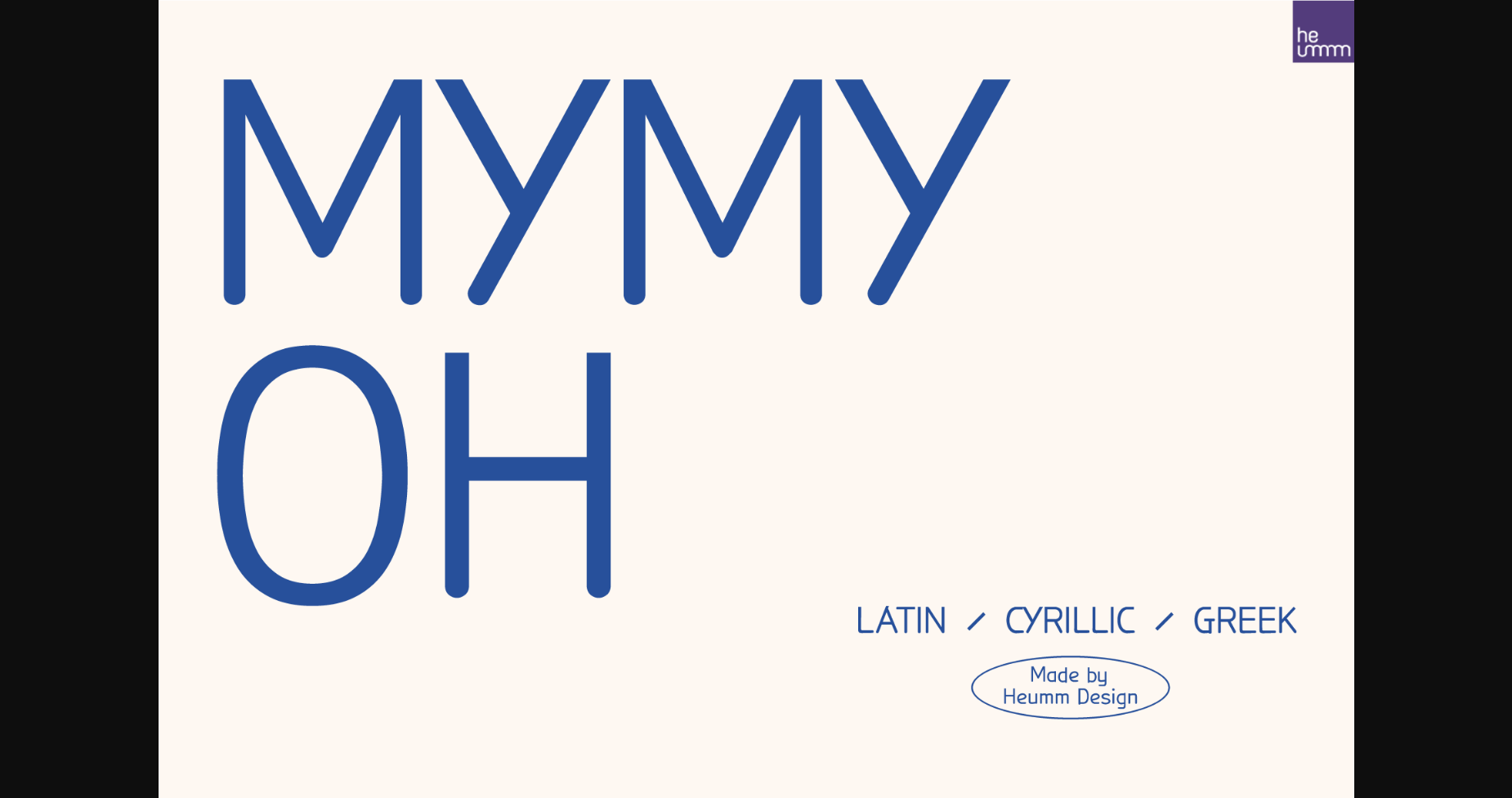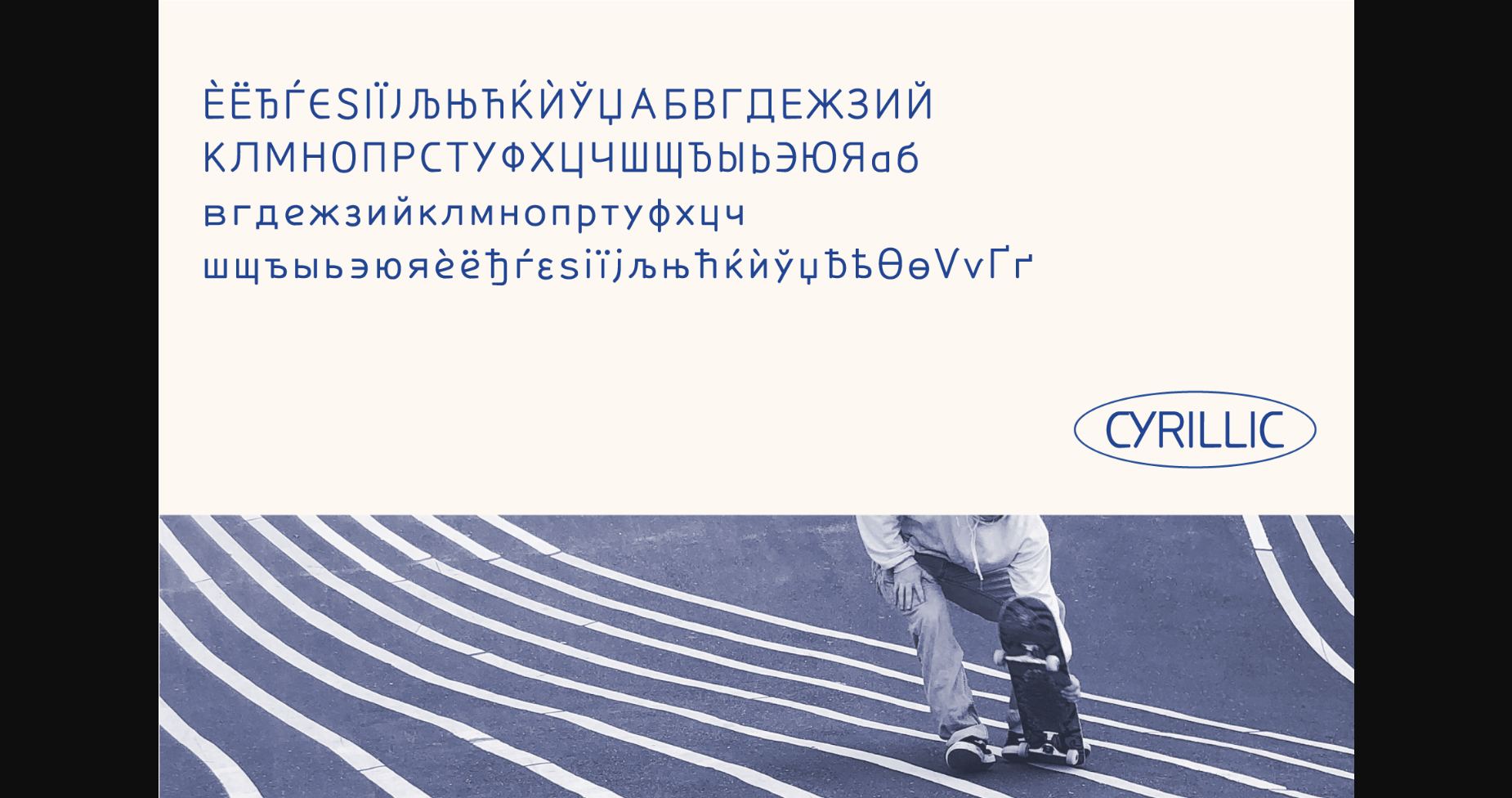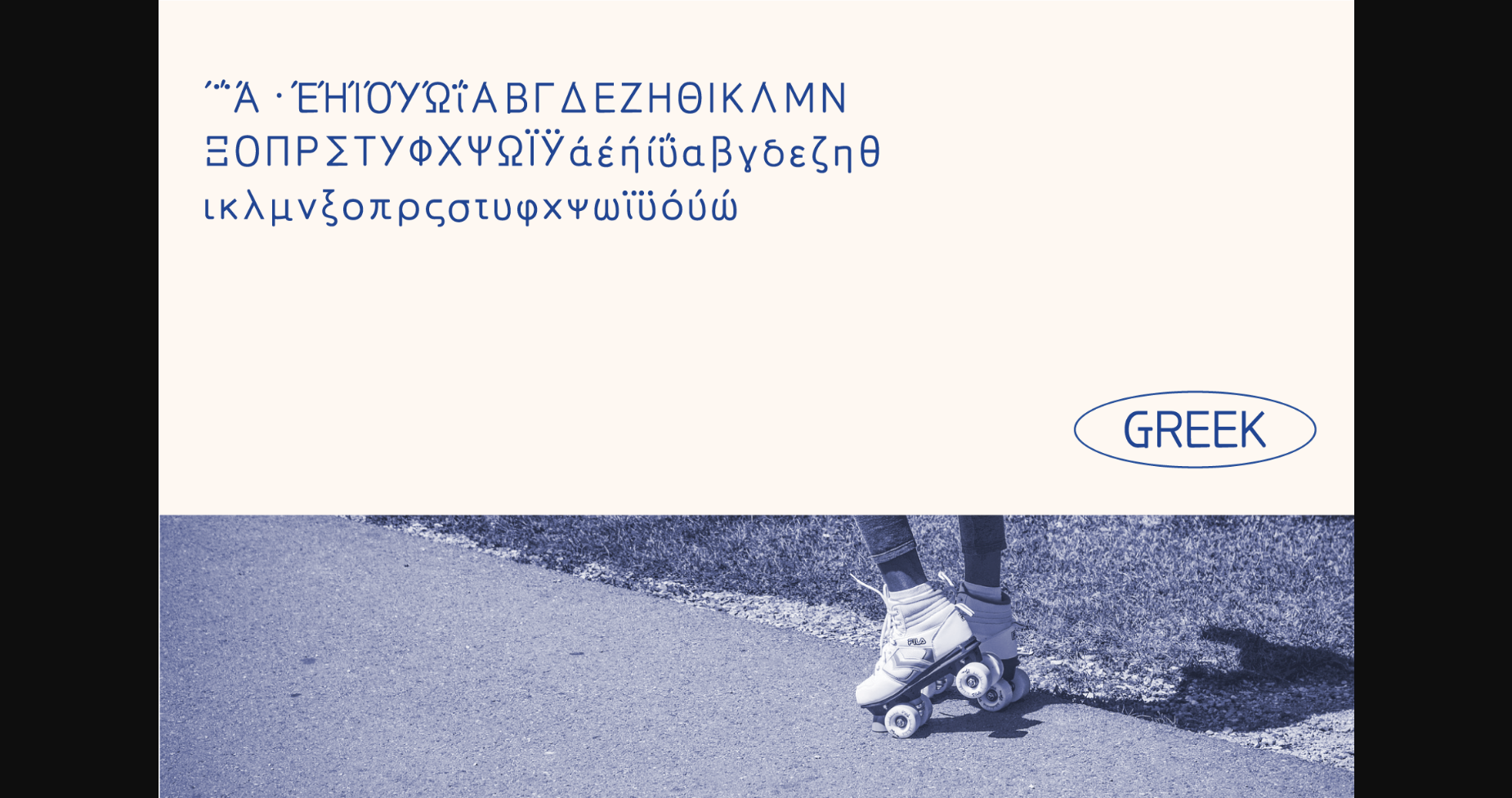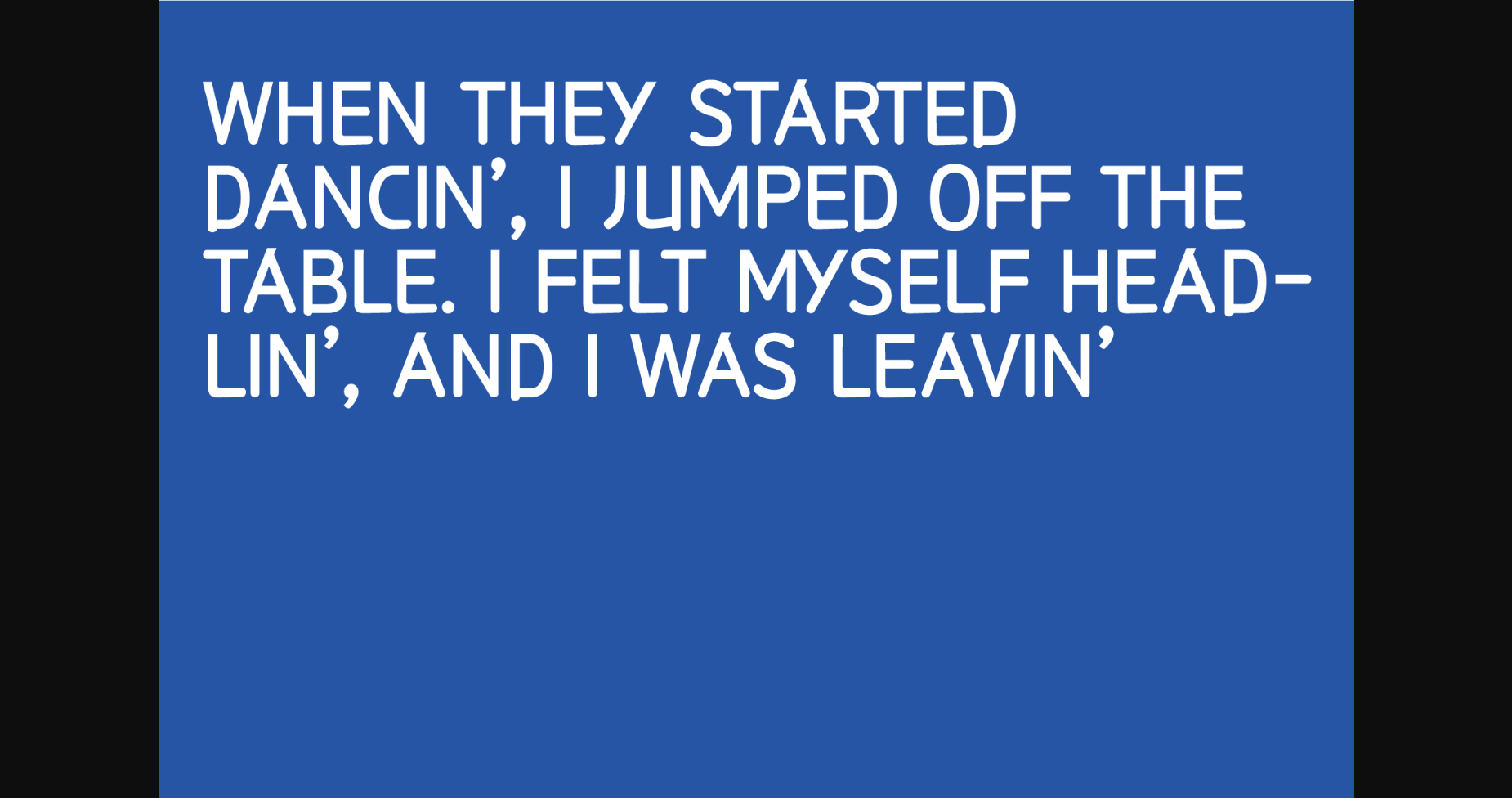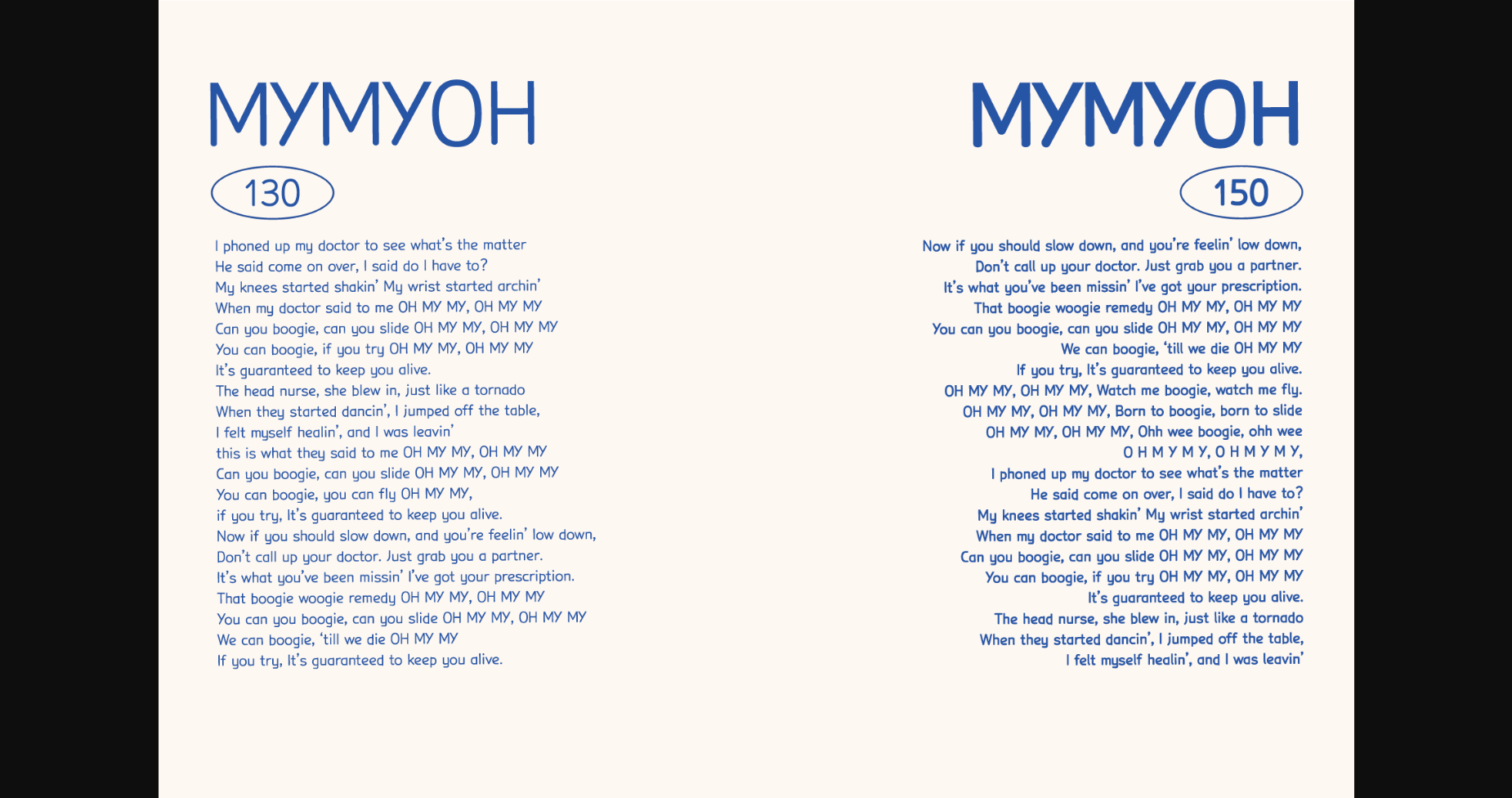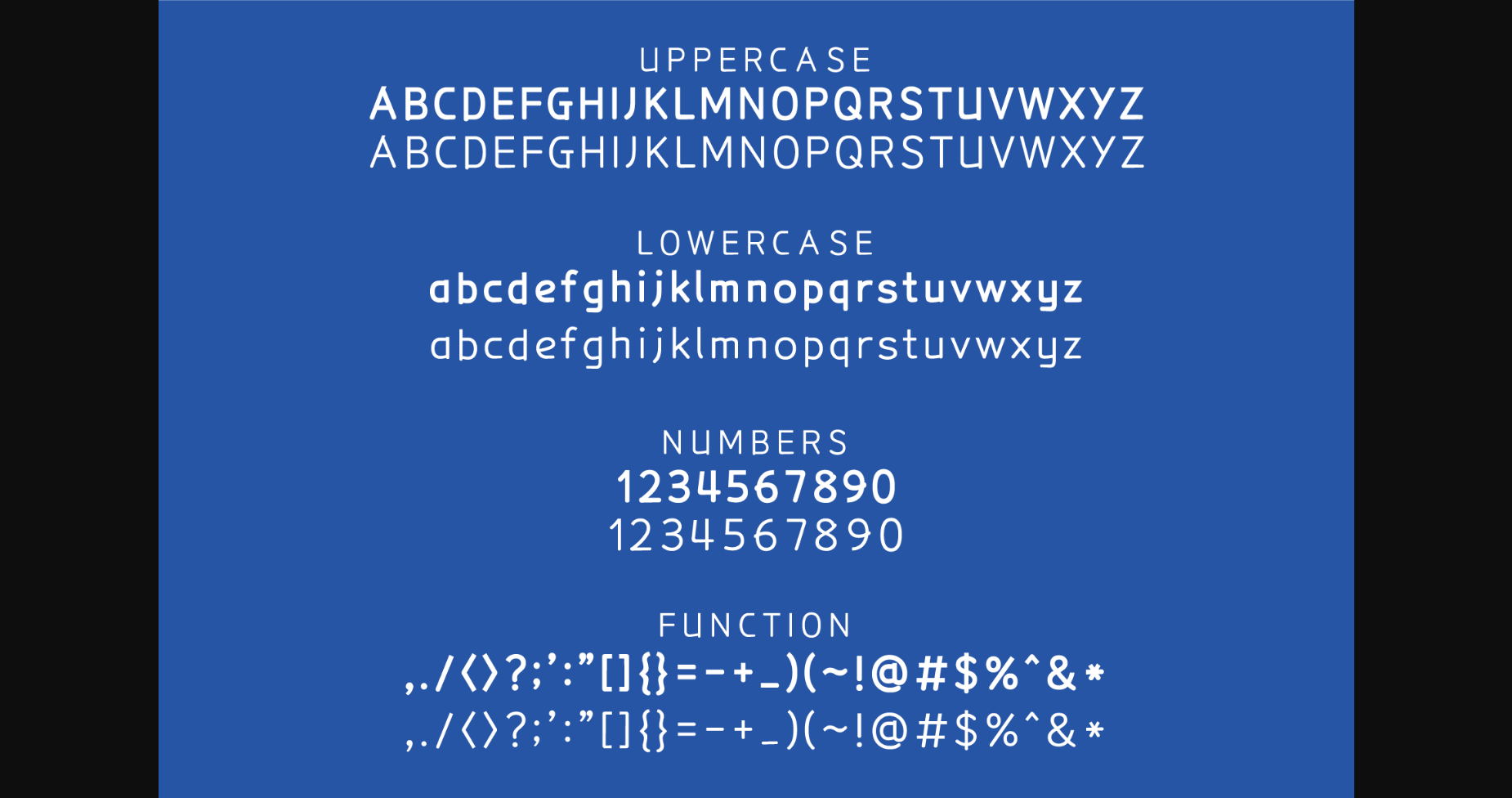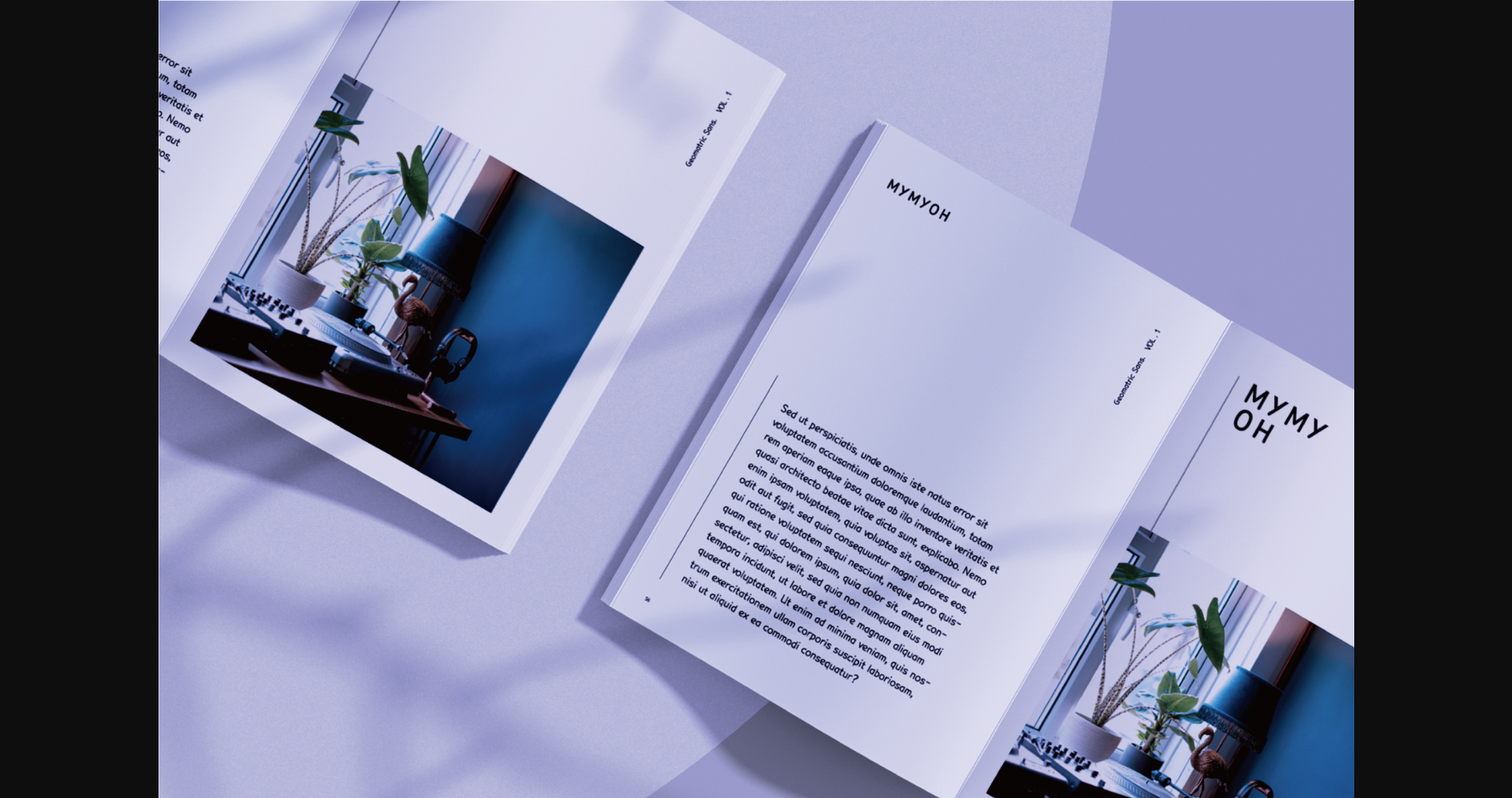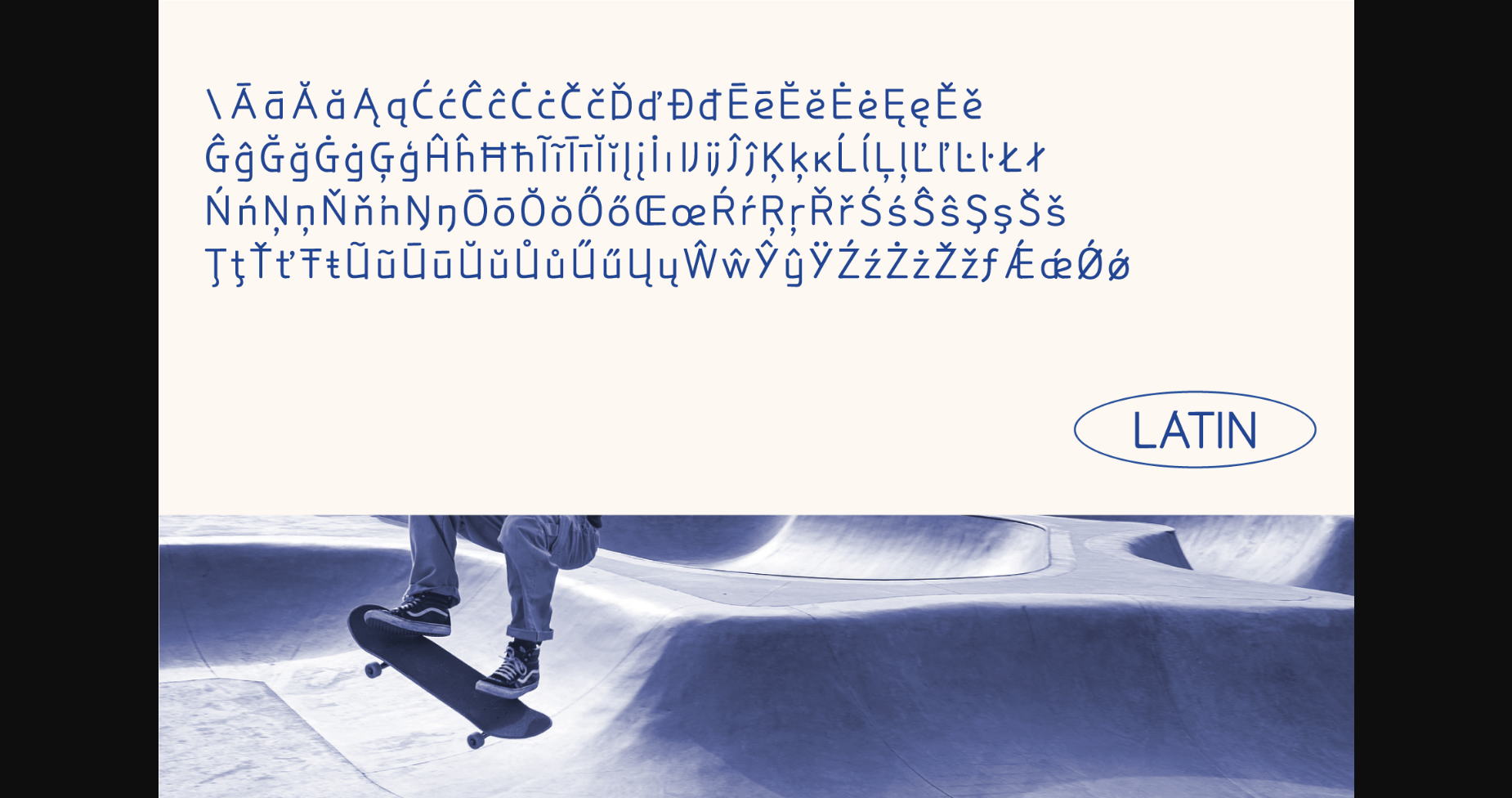
About Hu Mymyoh Font
HU Mymyoh is a cute sans serif font that can be used to express any lively or active moment.
The alphabets are not aligned or evenly written but are crooked like scribble, which gives your project a funny and informal vibe.